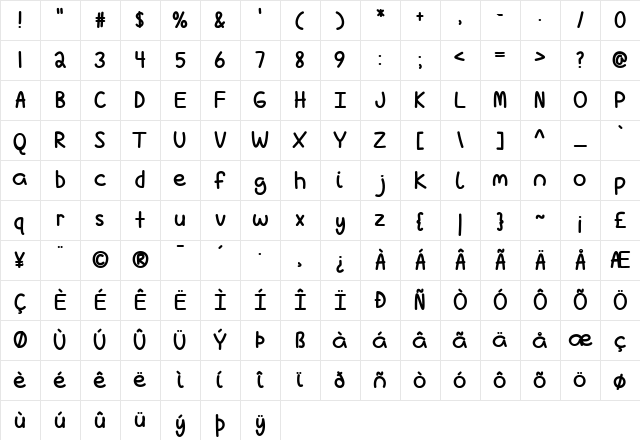
Complete Love Is Complicated Again Bold glyph index. Displaying only characters natively supported by Love Is Complicated Again Bold font.
Love Is Complicated Again is a composed and adaptable typeface that performs quietly and consistently across a wide range of design contexts. Its bold stroke weight gives it real presence on the page.